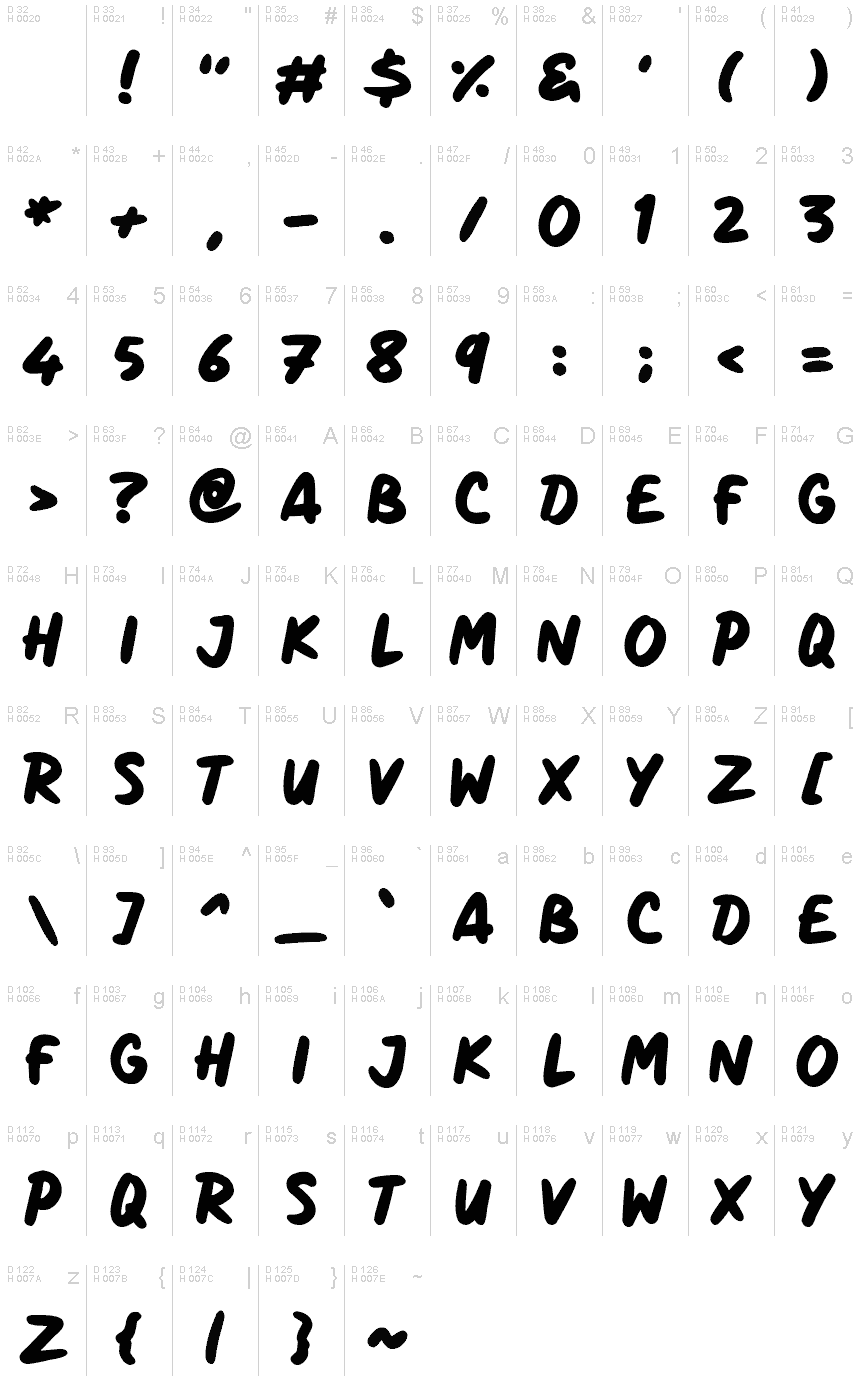
Marker Notes
Marker Notes is a bold, expressive font that exudes a playful, dynamic energy. Its uneven, hand-drawn strokes and irregular letter forms lend an organic, artisanal feel, evoking the spontaneity of marker or brush lettering. This font's versatility shines through its ability to seamlessly transition between comic, script, and marker styles, making it a versatile choice for a wide range of design applications.
From eye-catching headlines and titles to whimsical branding or packaging designs, Marker Notes' unique aesthetic adds a touch of personality and character. Its robust, confident strokes and distinctive flair make it an ideal selection for projects that aim to capture a sense of handcrafted authenticity and youthful vibrancy.